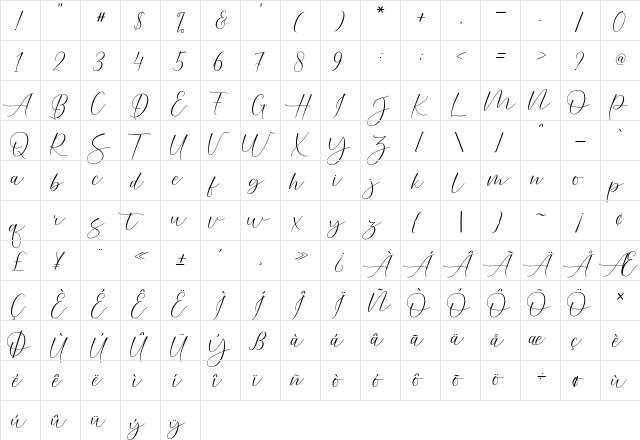
Helostar Regular
Design Context for Helostar Typeface
Helostar is a composed and adaptable typeface that performs quietly and consistently across a wide range of design contexts.